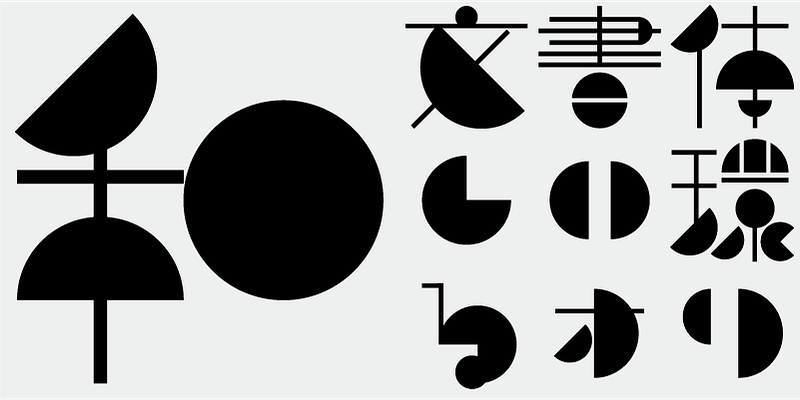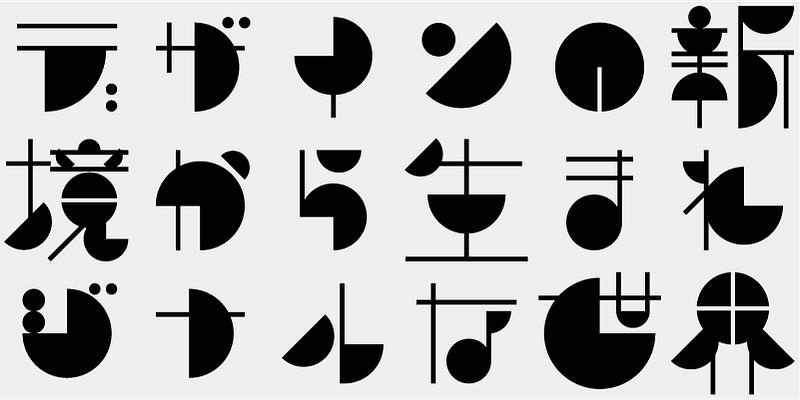
Created using only perfect circles, quarter-circles, half-circles, three-quarter circles, and straight lines to form geometric characters. The result somehow evokes an atmosphere of young children playing together harmoniously.
This font includes the top 1,000 kanji characters selected from usage frequency lists compiled by newspaper companies, publishers, and the National Institute for Japanese Language and Linguistics, plus 206 additional characters such as kana, alphanumerics, and carefully selected symbols and punctuation marks.